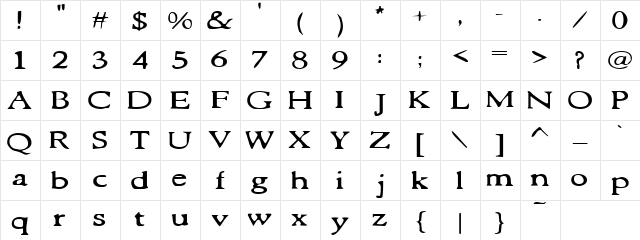
Ready for my Closeup Regular
Design Context for Ready for my Closeup Typeface
Ready for my Closeup offers clean, dependable letterforms without strong stylistic allegiance, making it a practical choice for designers who need flexibility.